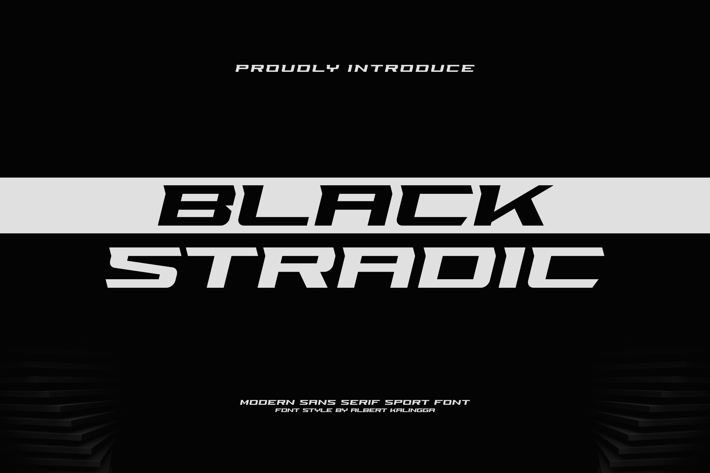
Black Stradic Font
Introducing our new product Black Stradic Font - Modern Font
Black Stradic Font - Modern Font is a bold and authentic display font. The font is suitable for any branding project like logo, esport, and many more. outstanding in a wide range of contexts.